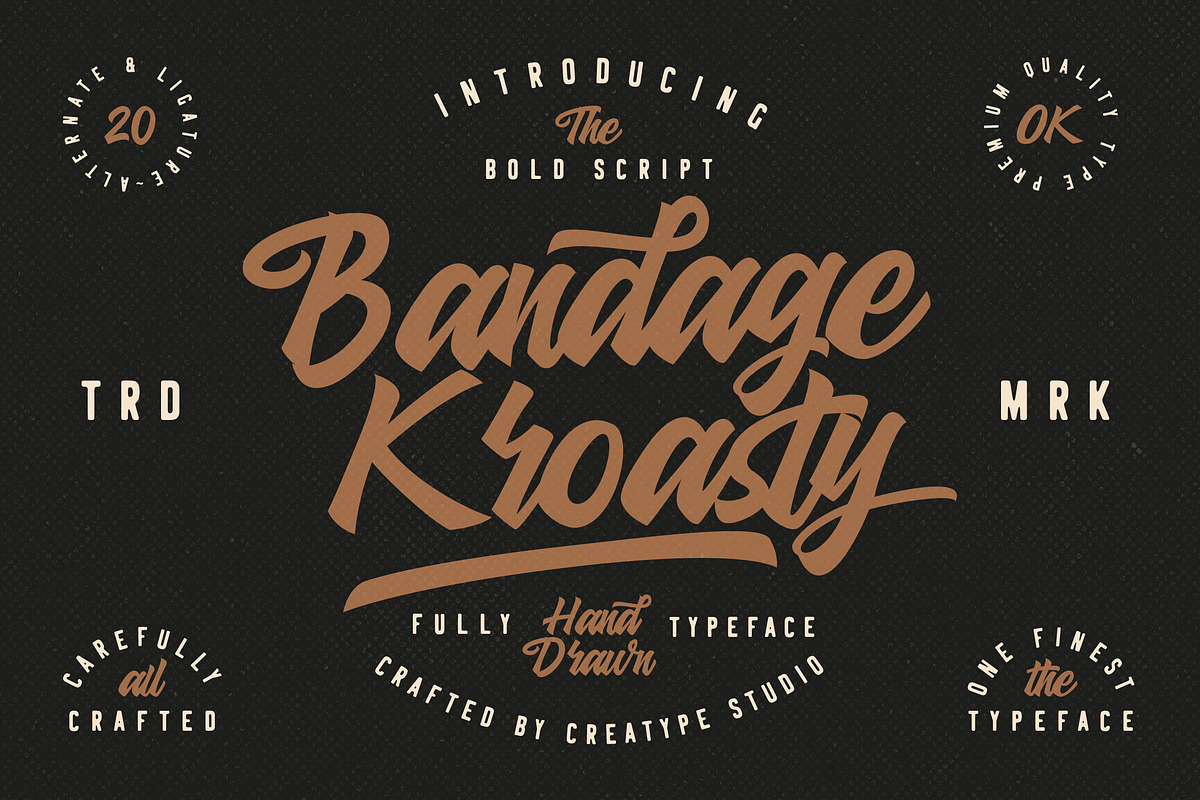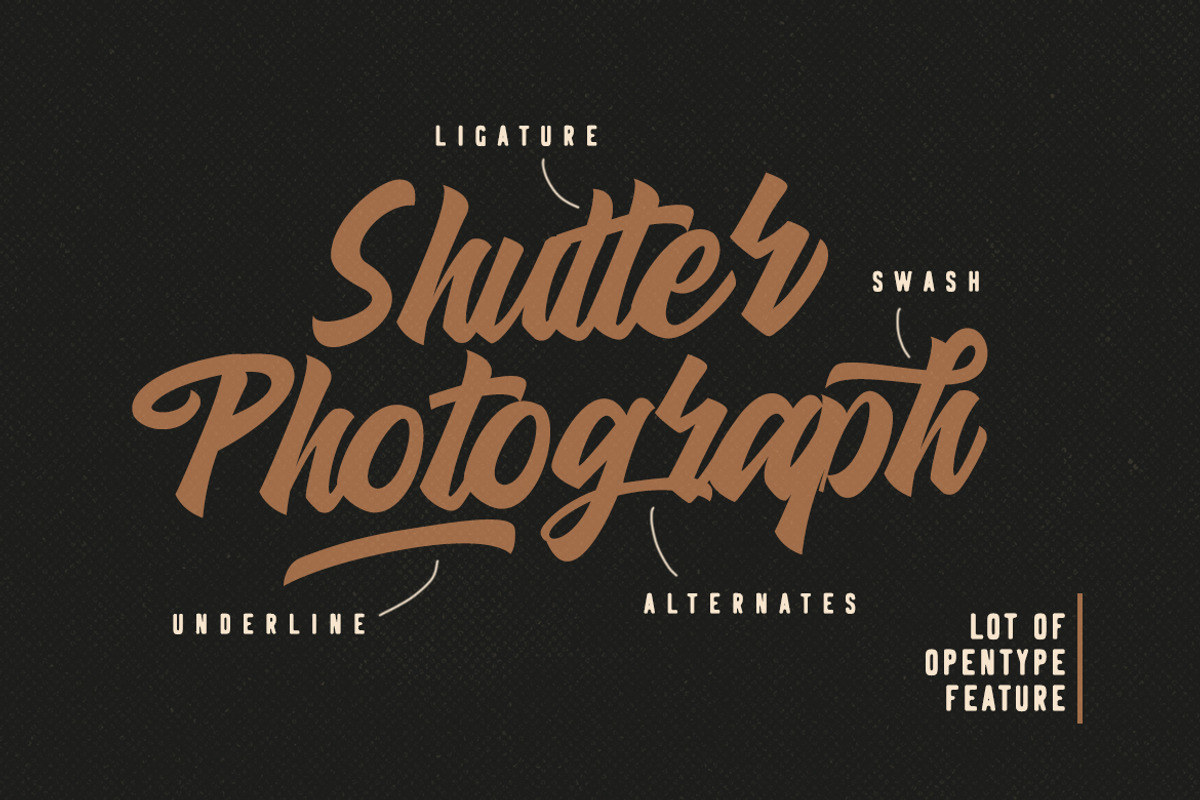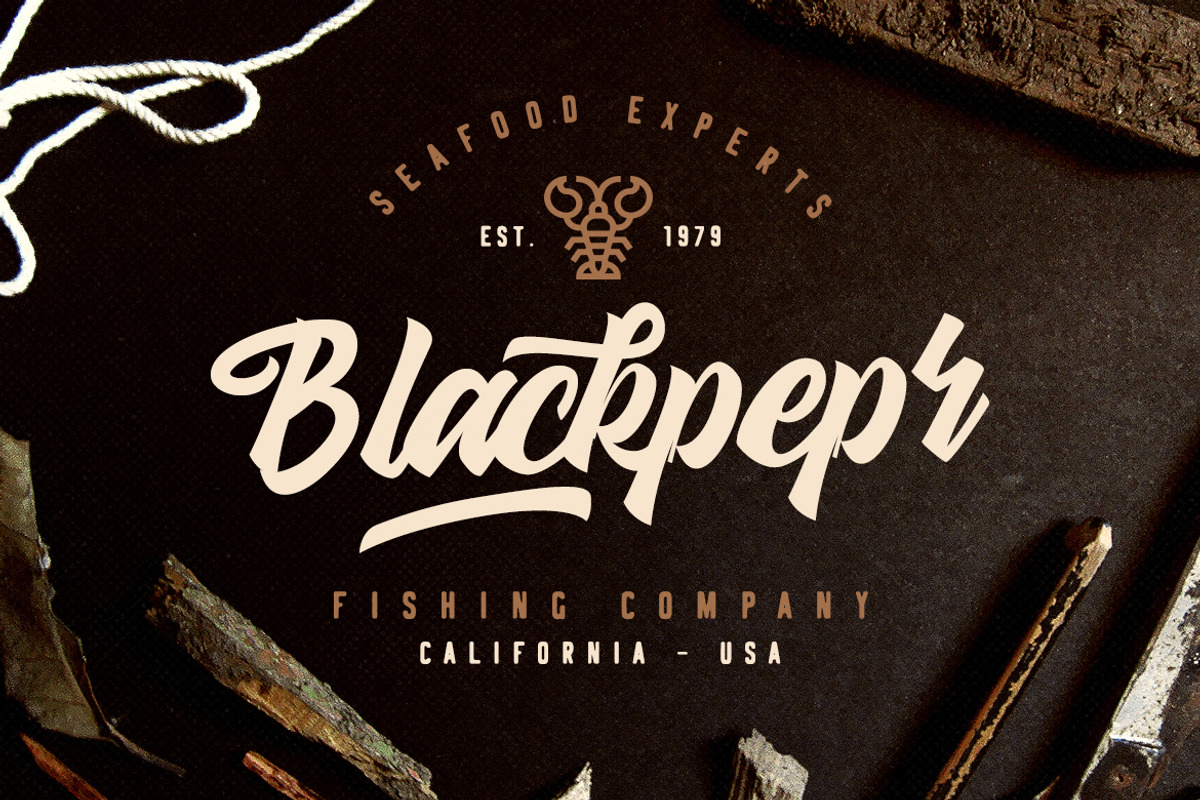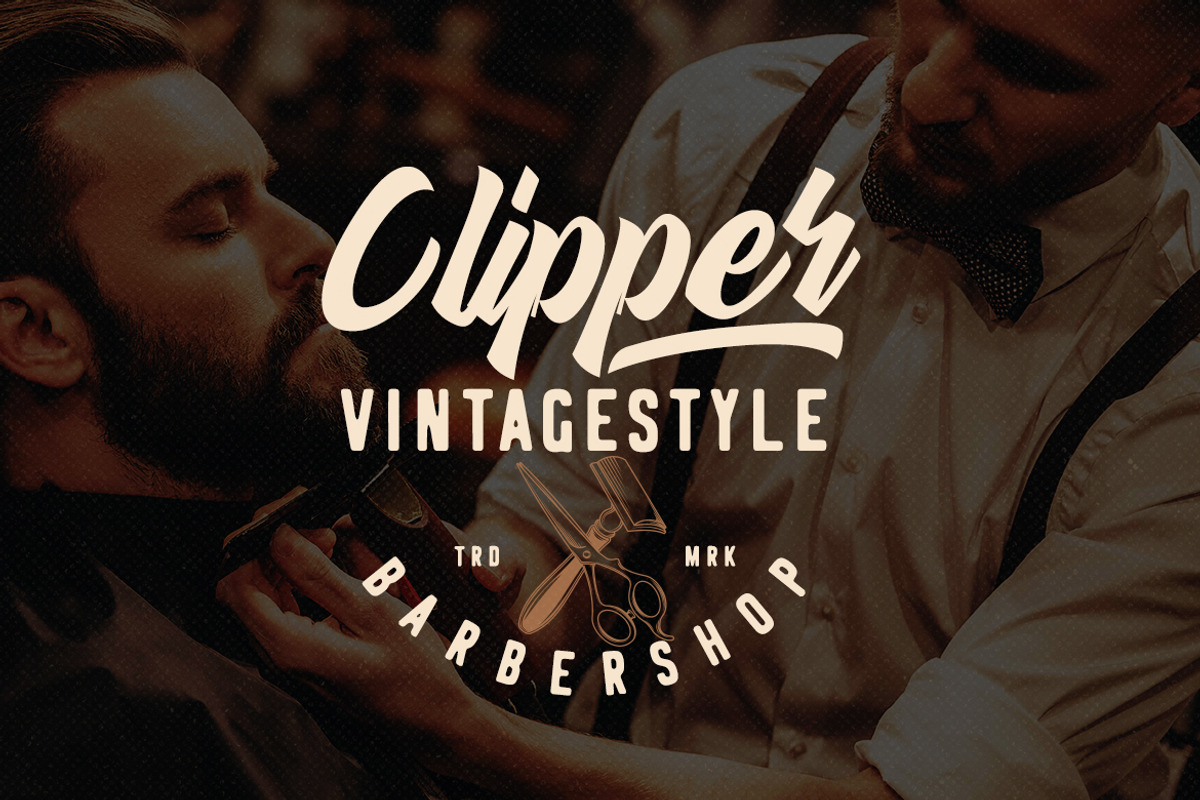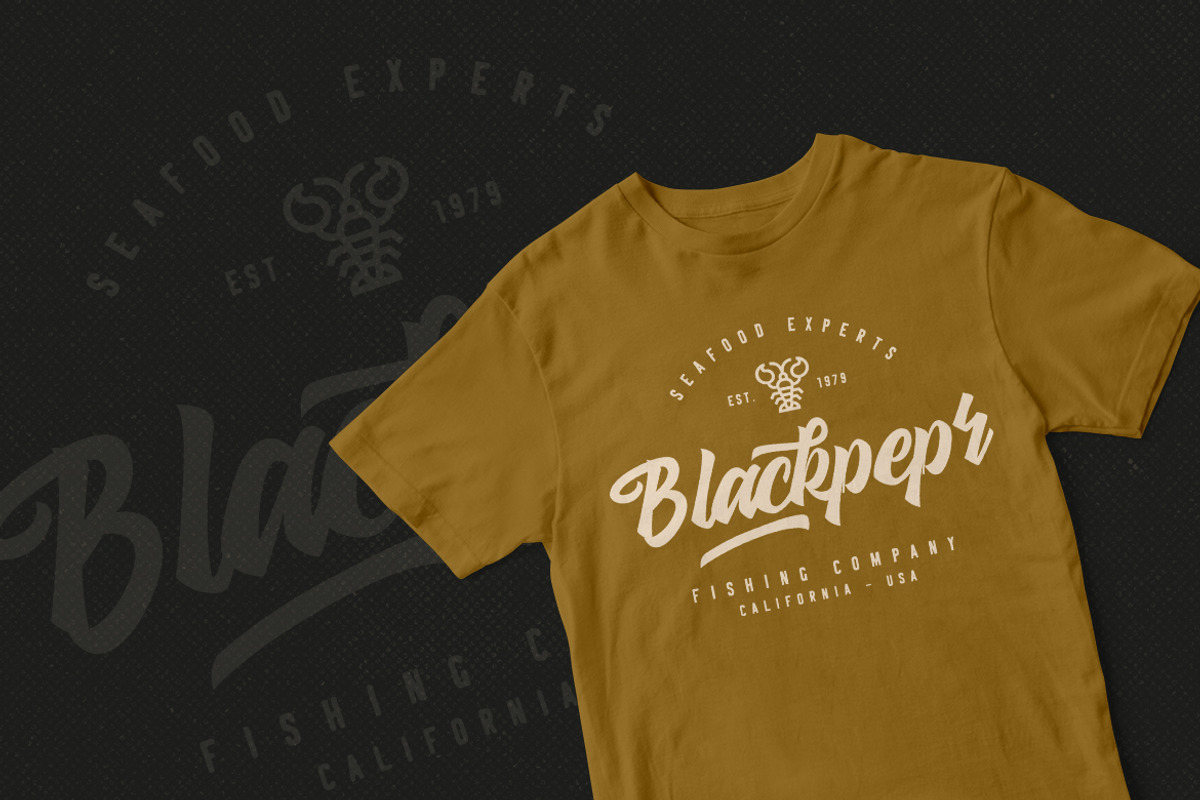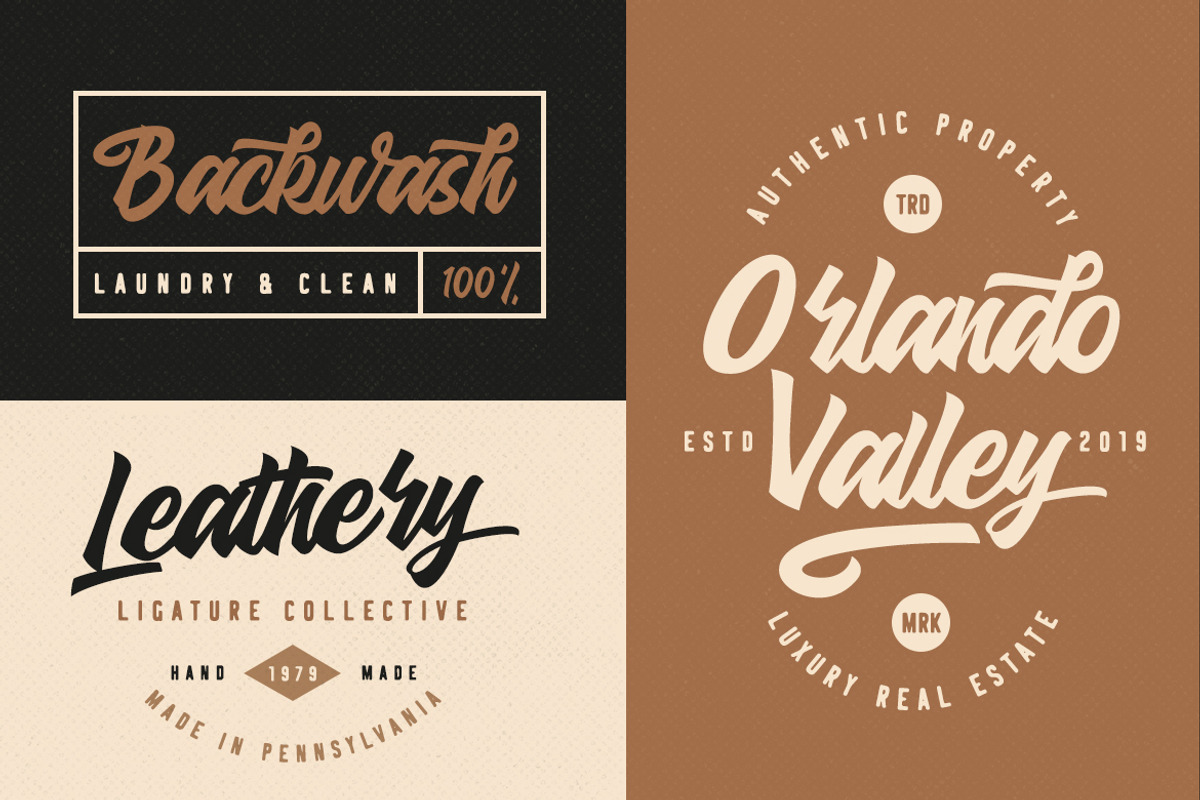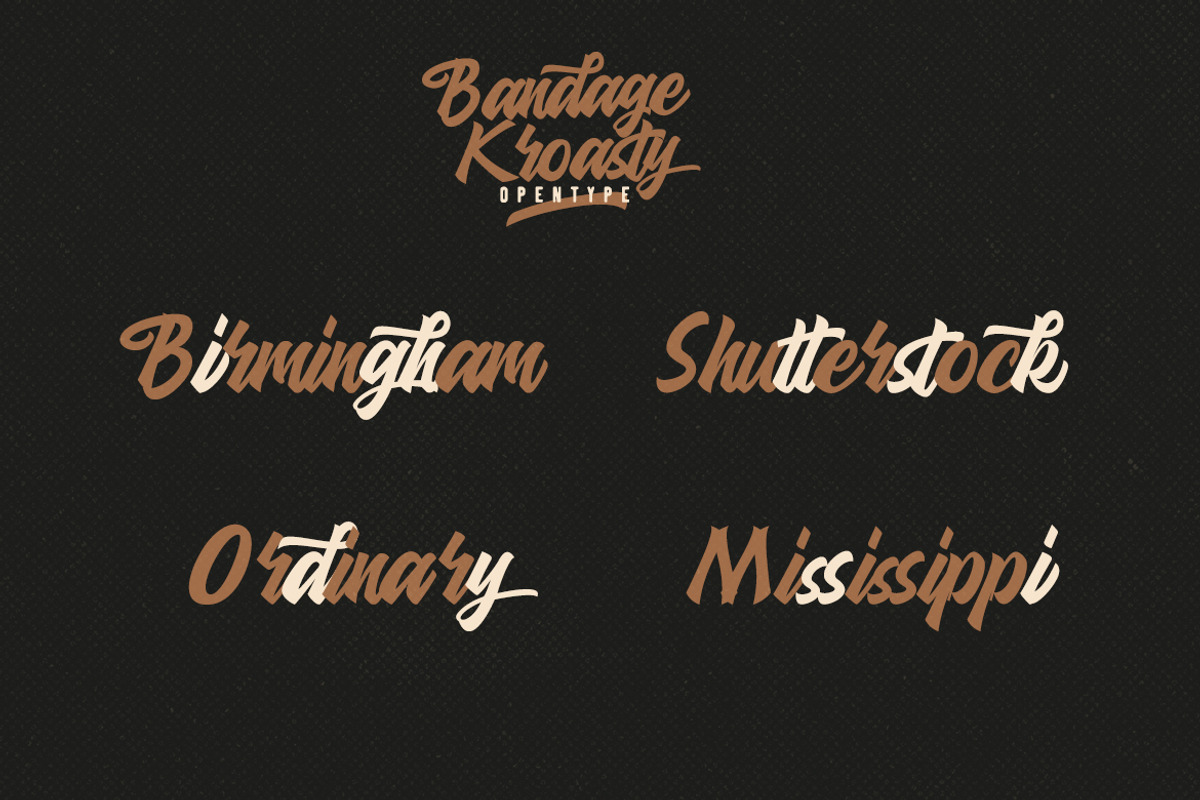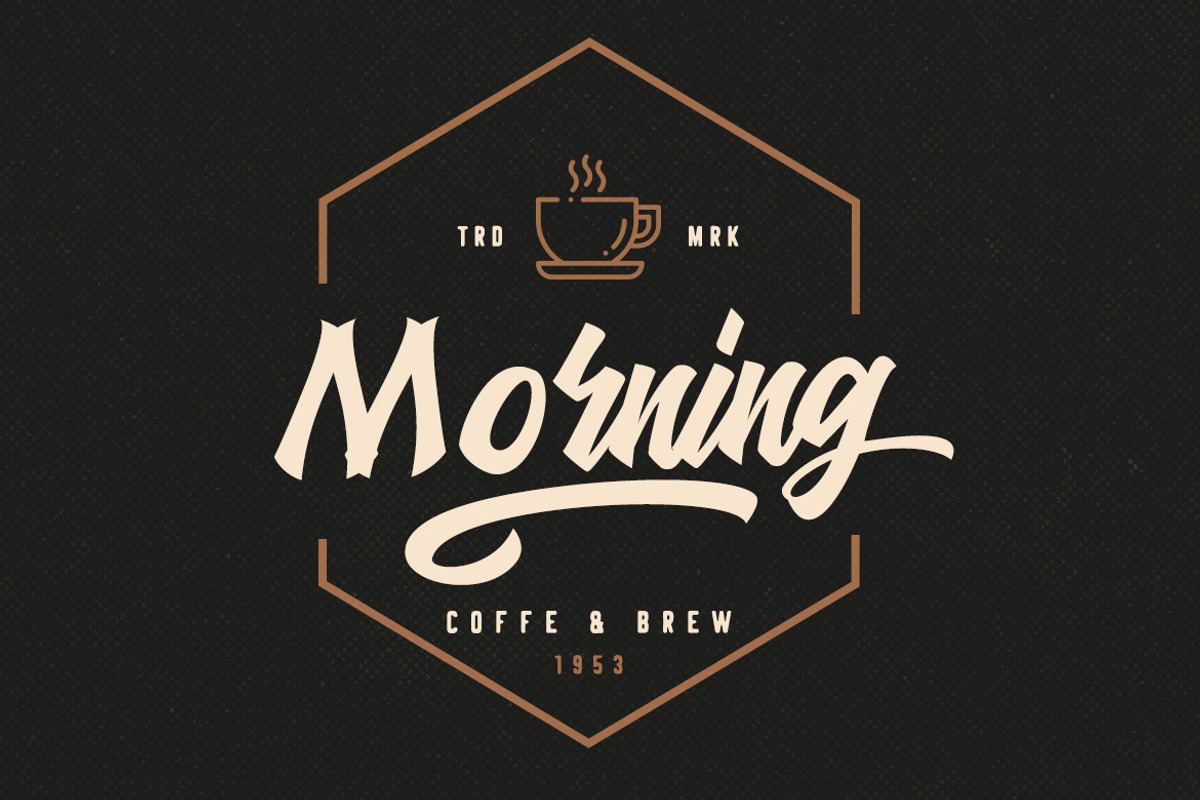
Bandage Kroasty Script Business Font
Bandage Kroasty is a old time vintage looks font script with natural handlettering movement, this font is great for your latest project.
Bandage Kroasty font is perfect for many different project such as logos & branding, invitation, stationery, wedding designs, social media posts, advertisements, product packaging, product designs, label, photography, watermark, special events or anything.
- More than 300 of glyphs
- Ligature & Stylistic alternate
Bandage Kroasty Script Business Font by Creatype Studio fits naturally into Branding, posters, packaging, typography.